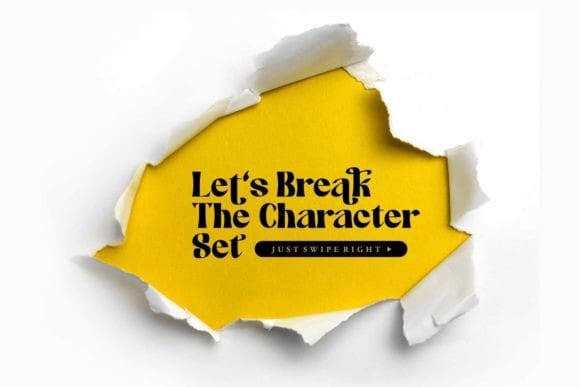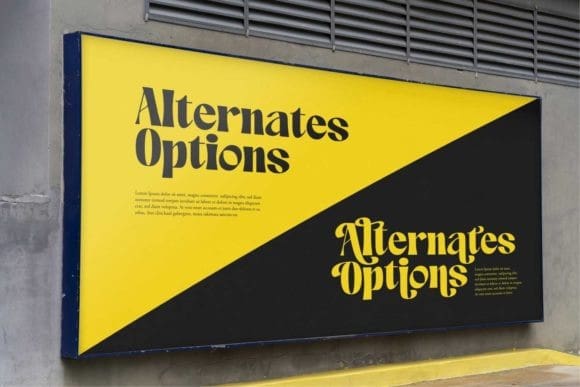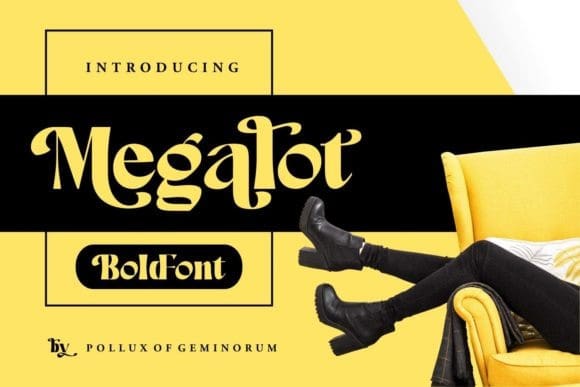
Megalot Font
Megalot Font is a strong, bold display font with thick strokes, perfect for headlines or titles. Megalot is a typeface that has been designed to be used in any kind of creation, such as titles, branding, logos or posters.